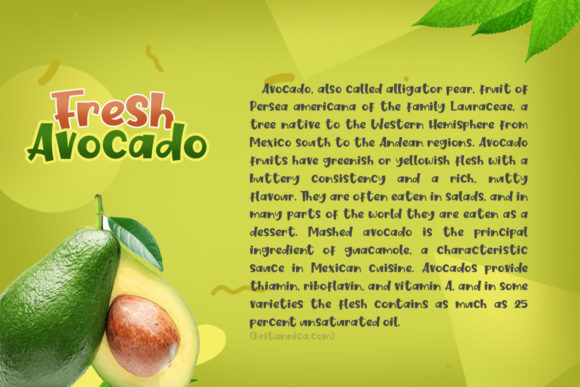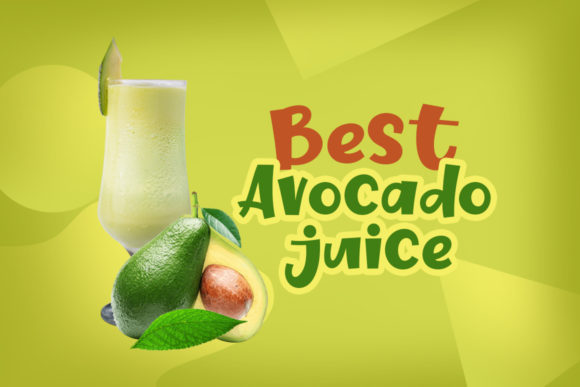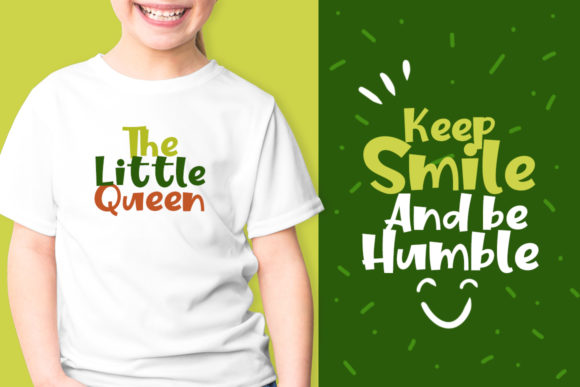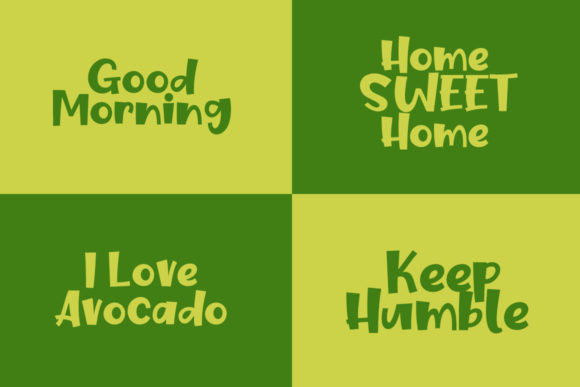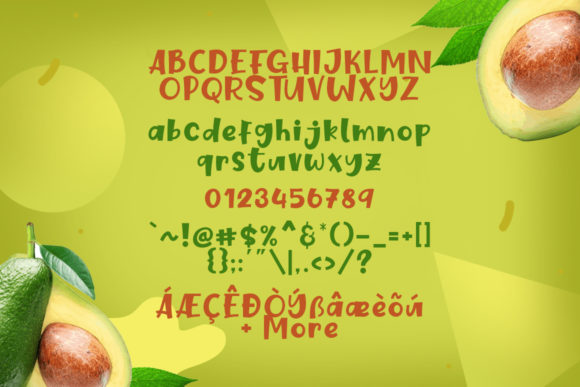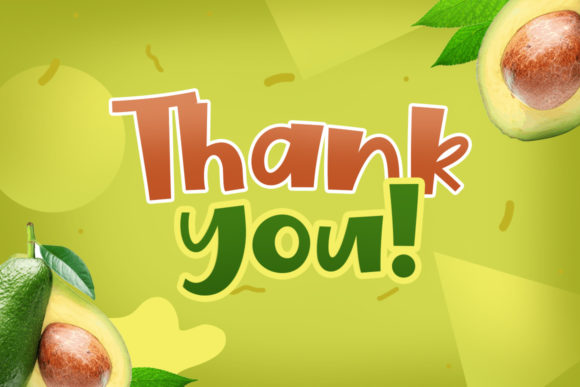
The Ultimate Guide to Fresh Avocado Font: Elevate Your Designs with a Fun and Joyful Display Font
An Honest Review of Fresh Avocado Font
What I Love About Fresh Avocado Font
- ✨ Fun and playful vibe: Fresh Avocado Font has a unique, energetic feel that’s perfect for designs that need a bit of personality.
- ✅ Highly versatile: This font can be used for a wide range of projects, from branding and advertising to crafting and DIY projects.
- 🎉 Great for headlines and titles: The font’s bold and eye-catching style makes it ideal for grabbing attention and adding emphasis to your text.
While Fresh Avocado Font is an amazing display font, it’s not without its quirks. ⚠️ Here are a few things to keep in mind:
- 🤔 Legibility at small sizes: As with many display fonts, Fresh Avocado can be a bit tricky to read at smaller sizes. It’s best used for headlines and titles rather than body text.
- ⚠️ Limited use of OpenType features: While Fresh Avocado does offer some basic OpenType features, it’s not as extensive as some other fonts on the market.
The Story Behind Fresh Avocado Font
Fresh Avocado Font was designed with the intention of creating a fun and playful display font that would bring joy to designers and crafters alike. The designer, inspired by the vibrant colors and playful textures of fresh avocados, aimed to create a font that would add a pop of personality to any design. With its bold and eye-catching style, Fresh Avocado Font is sure to make your designs stand out!
| Font Name | Fresh Avocado Font |
| Author | Khurasan |
- Q: What type of projects is Fresh Avocado Font best suited for?
- A: Fresh Avocado Font is perfect for a wide range of projects, including branding, advertising, crafting, and DIY projects.
- Q: Is Fresh Avocado Font available in different weights or styles?
- A: Currently, Fresh Avocado Font is available in a single weight. However, the designer may release additional weights or styles in the future.